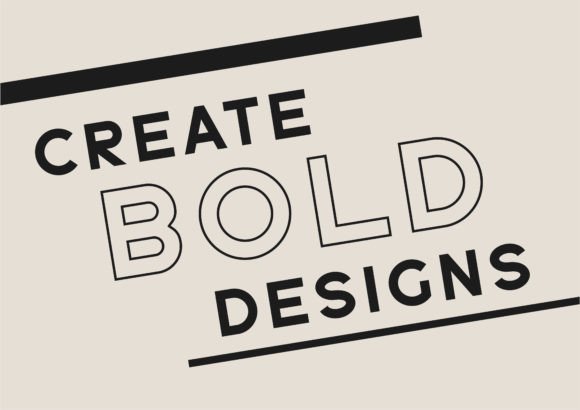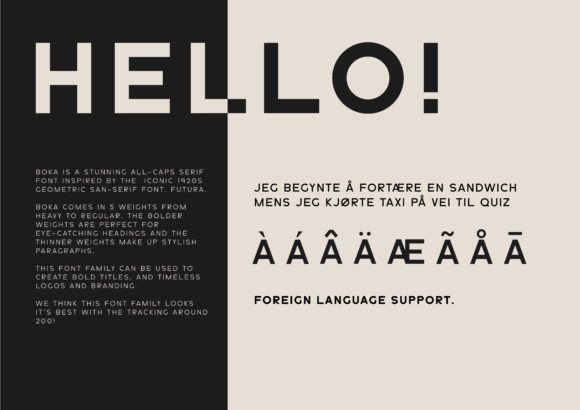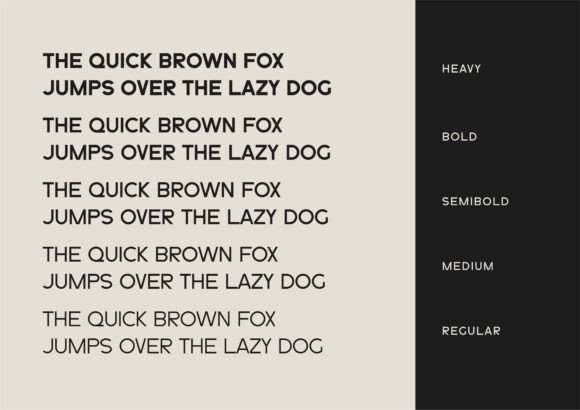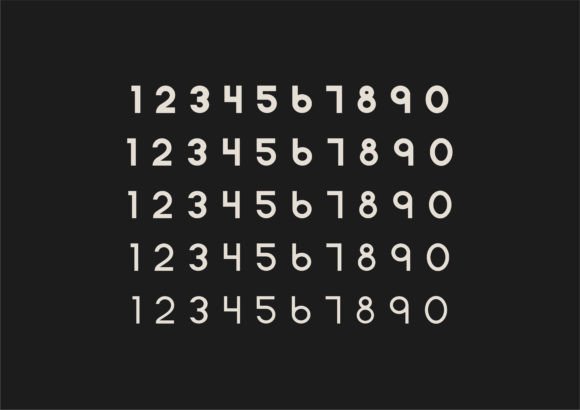
The Perfect Combination: Where Bold Meets Sophistication
Have you ever found yourself stuck in front of your computer screen, staring blankly at a blank canvas, trying to bring your creative vision to life? The blank page can be intimidating, but sometimes all it takes is the right tool to spark inspiration. For designers looking to create striking, modern designs, the Boka Font is just the thing to get those creative juices flowing.
This elegant and bold sans-serif font is the perfect blend of strength and sophistication, making it a valuable asset for any designer’s toolkit. With its sleek lines and angles, the Boka Font adds a level of refinement to any design, making it perfect for a wide range of applications, from branding and advertising to digital products and publications.
Boka Font Key Features
- Font Family: Boka is a sans-serif font family designed for use in digital products, magazines, and books.
- Unique Characteristics: Boka font features a clean and modern design, with a focus on legibility and readability in digital environments. Its x-height and line spacing make it suitable for body text, while its bold and italic weights are ideal for headings and emphasis.
- Language Support: Boka font supports a wide range of languages, including Latin, Cyrillic, and Greek scripts, making it a versatile choice for global applications.
I recently had the chance to work with the Boka font, and I must say it’s an interesting mix of modern and elegant elements. Here are my thoughts on what works well and what doesn’t.
- The Boka font has a unique and modern aesthetic that can easily be used for a wide range of applications, from digital products to print materials.
- The font’s bold and italic styles are particularly well-designed, adding depth and variety to text.
- The font’s open-source nature makes it easily accessible and adaptable for any project.
- The regular weight of the font can feel a bit thin and may not be suitable for all text-heavy projects.
- The font’s x-height can be a bit inconsistent, which may affect readability in certain contexts.
- The font’s font family is relatively small, with only a few weights and styles available.
Overall, I think the Boka font is a great option for designers looking for a modern and elegant font. While it has some limitations, its unique aesthetic and open-source nature make it a great choice for a wide range of projects. With some careful selection and styling, I think the Boka font can add a touch of sophistication and style to any design.
For best results, use Boka Font in conjunction with bold and italic styles to add emphasis to your text. Experiment with different font sizes and colors to create visual interest.
Boka Font is ideal for use in:
- Typography-based designs
- Editorials and publications
Playfair Display is a high-end serif font ideal for luxury branding, invitations, and formal events. It features elegant connections between letters and refined details.
Comparison to Boka Font: While Boka Font is also a high-end serif font, Playfair Display is more ornate and elegant, making it suitable for more formal and luxurious designs.
Merriweather is a classic serif font suitable for body text, headlines, and formal documents. It features a timeless and elegant design that works well in both print and digital media.
Comparison to Boka Font: Merriweather is a more classic and traditional font compared to Boka Font, which is more modern and elegant. Merriweather is suitable for projects where a classic and timeless design is desired.